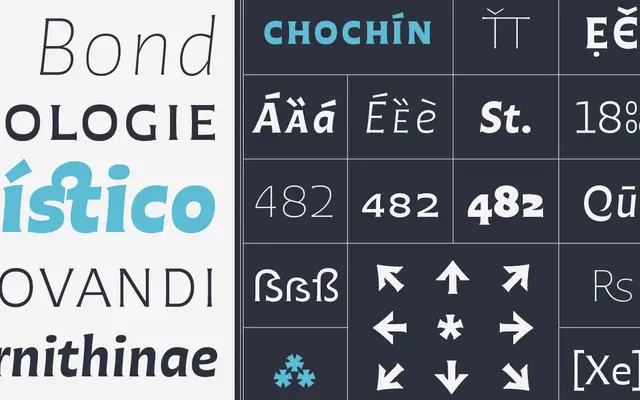
Chercán
Pampatype · Francisco Gálvez Pizarro · 2016
A flare serif by Francisco Gálvez Pizarro, named after a Chilean wren, that balances informal warmth with typographic authority across text and display sizes.
Six weights from ExtraLight to ExtraBold, each with a matching italic, give Chercán a broad range for both long-form reading and headline work. Its personality is relaxed without sacrificing legibility, making it suited to books, magazines and posters where a human voice is wanted. Latin Extended and Greek polytonic coverage, alongside a rich set of OpenType features including small caps, oldstyle figures, bird dingbats and polytonic alternates, make it a well-equipped choice for multilingual publishing.
The page lists it as a flare serif with hybrid characteristics, featuring reverse contrast and a singular informal personality that sits between text and display use — distinct from classical transitional or old-style serifs.